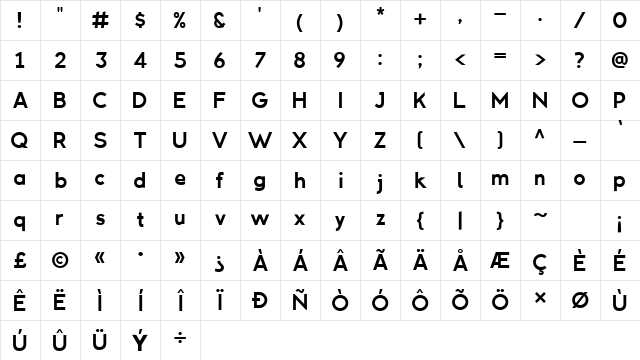
Laachir Deeper is a composed and adaptable typeface that performs quietly and consistently across a wide range of design contexts. Its bold stroke weight gives it real presence on the page.